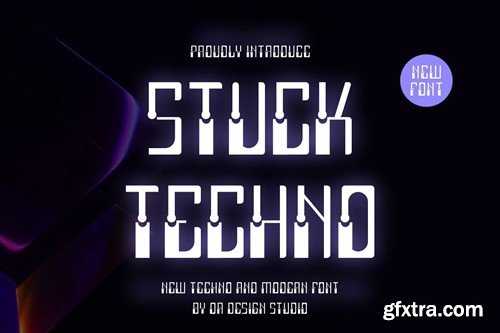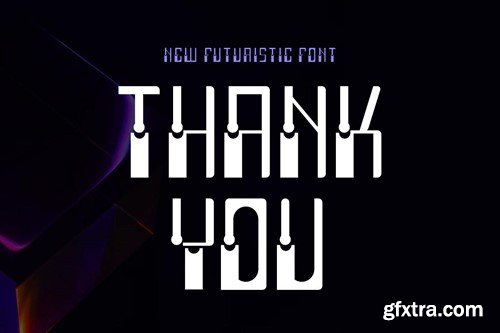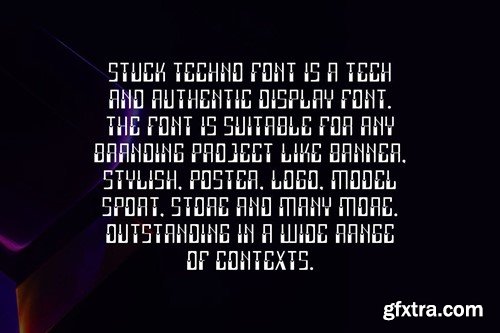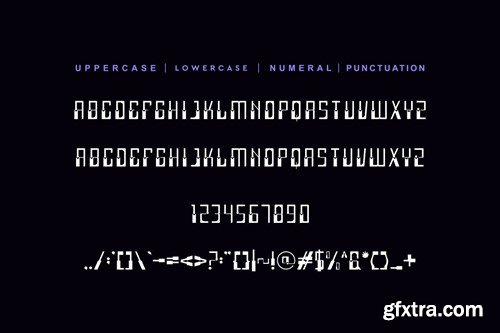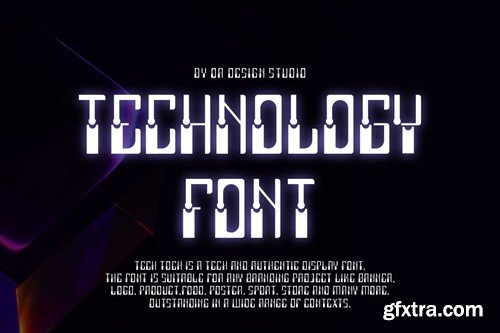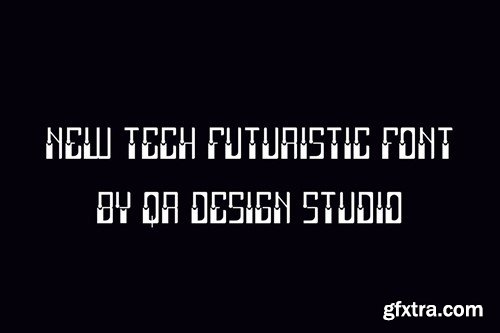
Stuck Techno Font
Stuck Techno Font is a tech and authentic display font. The font is suitable for any branding project like poster, logo, sport, and many more. Outstanding in a wide range of contexts. Included